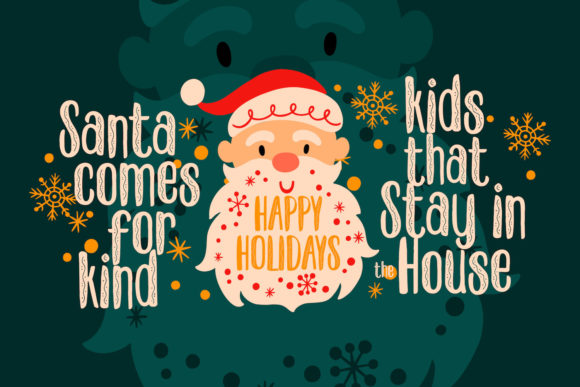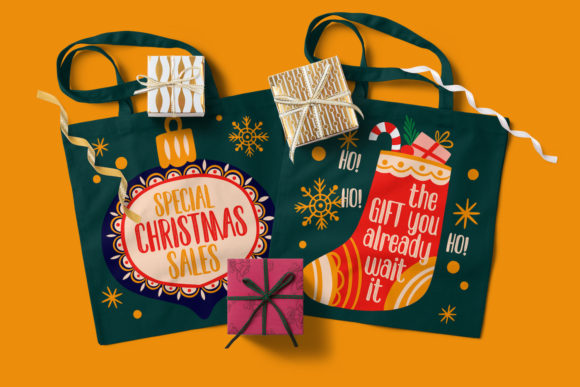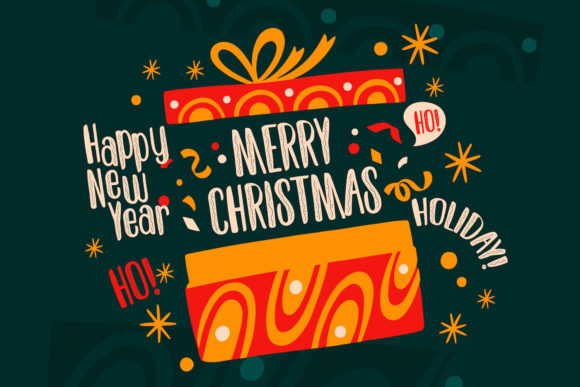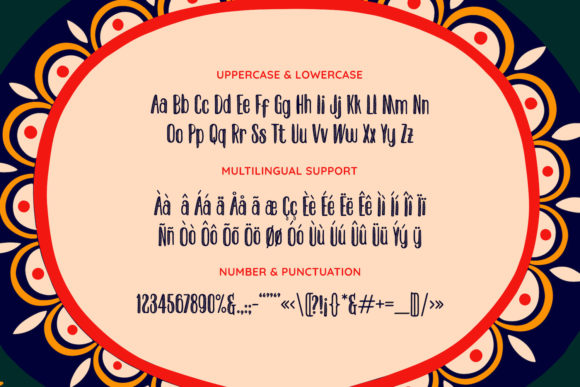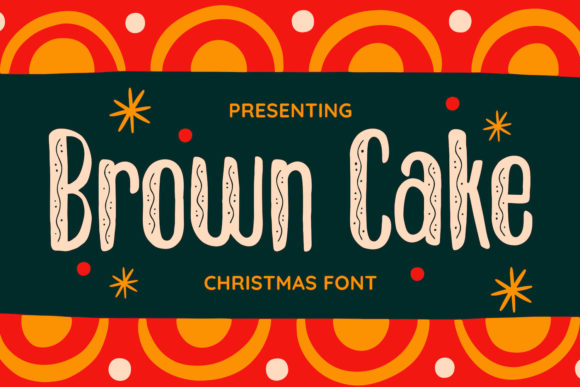
Brown Cake Font: The Perfect Addition to Your Design Arsenal
Brown Cake is a cool and interesting looking display font that has been making waves in the design community. Its natural and unique style makes it incredibly fitting to a large pool of designs, and the only limit is your imagination! In this article, we’ll dive into the world of Brown Cake Font, exploring its features, uses, and benefits for designers and crafters.
What is Brown Cake Font?
Brown Cake Font is a display font that boasts a distinctive, hand-crafted look. Its rustic charm and earthy feel make it perfect for designs that require a personal touch. The font’s unique style is reminiscent of handwritten notes, making it an excellent choice for projects that aim to convey a sense of warmth and approachability.
Key Features of Brown Cake Font
- Unique and Natural Style: Brown Cake Font’s natural and unique style sets it apart from other fonts. Its organic look makes it perfect for designs that require a personal touch.
- High Versatility: The font’s versatility knows no bounds. It can be used in a wide range of designs, from rustic and vintage to modern and minimalist.
- Easy to Read: Despite its unique style, Brown Cake Font is easy to read, making it perfect for use in headlines, titles, and short paragraphs.
- Supports Multiple Languages: The font supports multiple languages, making it a great choice for designers who work with international clients.
Uses of Brown Cake Font
Brown Cake Font is a versatile font that can be used in a variety of design projects, including:
- Branding and Logo Design: The font’s unique style makes it perfect for creating memorable logos and brand identities.
- Posters and Flyers: Brown Cake Font’s rustic charm makes it an excellent choice for creating eye-catching posters and flyers.
- Web Design: The font’s clean and elegant design makes it perfect for use in web design, particularly for headings and titles.
- Crafting and DIY Projects: Brown Cake Font’s handmade look makes it a great choice for crafting and DIY projects, such as making personalized cards and gift tags.
Benefits of Using Brown Cake Font
So, why should you choose Brown Cake Font for your design projects? Here are just a few benefits:
- Adds a Personal Touch: The font’s handmade look adds a personal touch to your designs, making them more relatable and engaging.
- Stand Out from the Crowd: Brown Cake Font’s unique style helps your designs stand out from the crowd, making them more memorable and impactful.
Tips and Tricks for Using Brown Cake Font
Here are a few tips and tricks for getting the most out of Brown Cake Font:
- Experiment with Different Sizes: Brown Cake Font looks great in a variety of sizes, so don’t be afraid to experiment and find the perfect size for your design.
- Pair with Other Fonts: The font pairs well with other fonts, so try combining it with different fonts to create a unique look.
- Use in Combination with Images: Brown Cake Font looks great in combination with images, so try using it to add text to your favorite photos.
In conclusion, Brown Cake Font is a versatile and unique display font that’s perfect for designers and crafters looking to add a personal touch to their projects. Its natural and unique style makes it incredibly fitting to a large pool of designs, and the only limit is your imagination! With its ease of use, high versatility, and constant updates, Brown Cake Font is a great addition to any design arsenal.